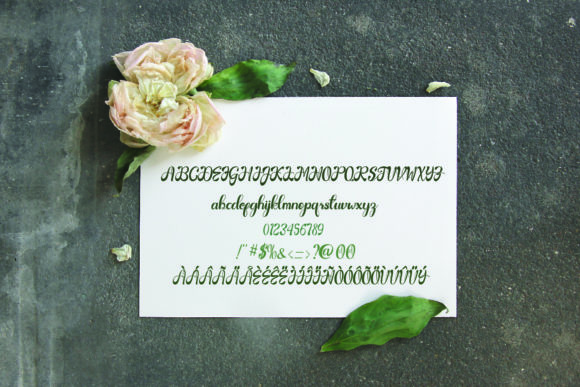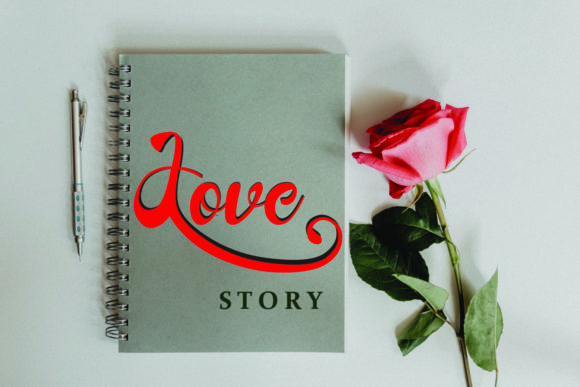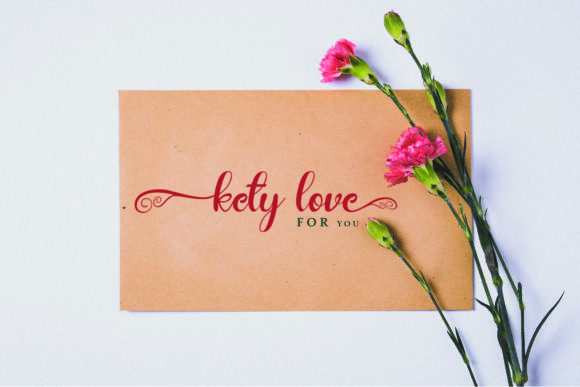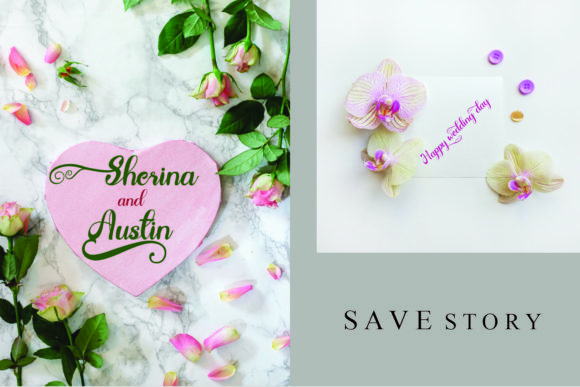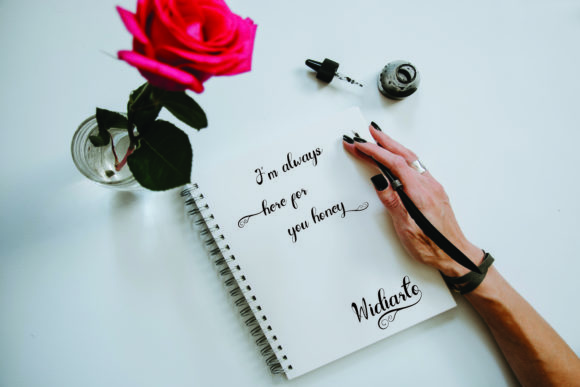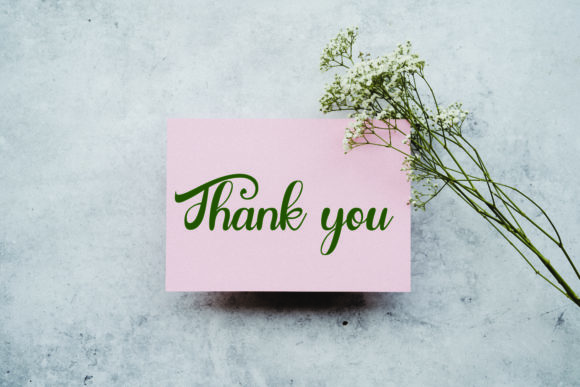
Gardenia Font
About Gardenia Font
Gardenia feels equally charming and elegant. It maintains its classy calligraphic influences while feeling contemporary and fresh. This versatility will appeal to a wide range of crafty ideas, from letterheads and titles, to stationery.